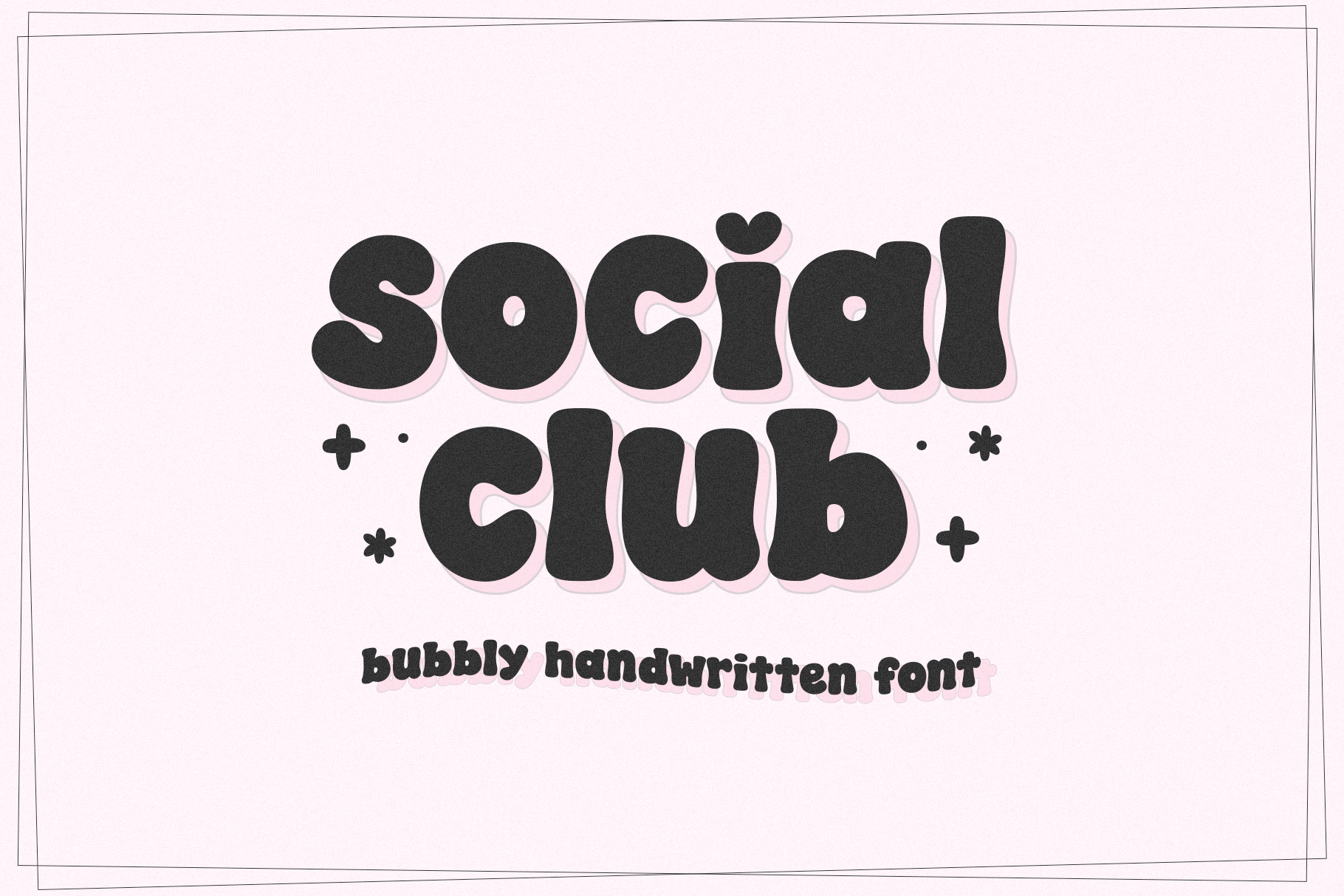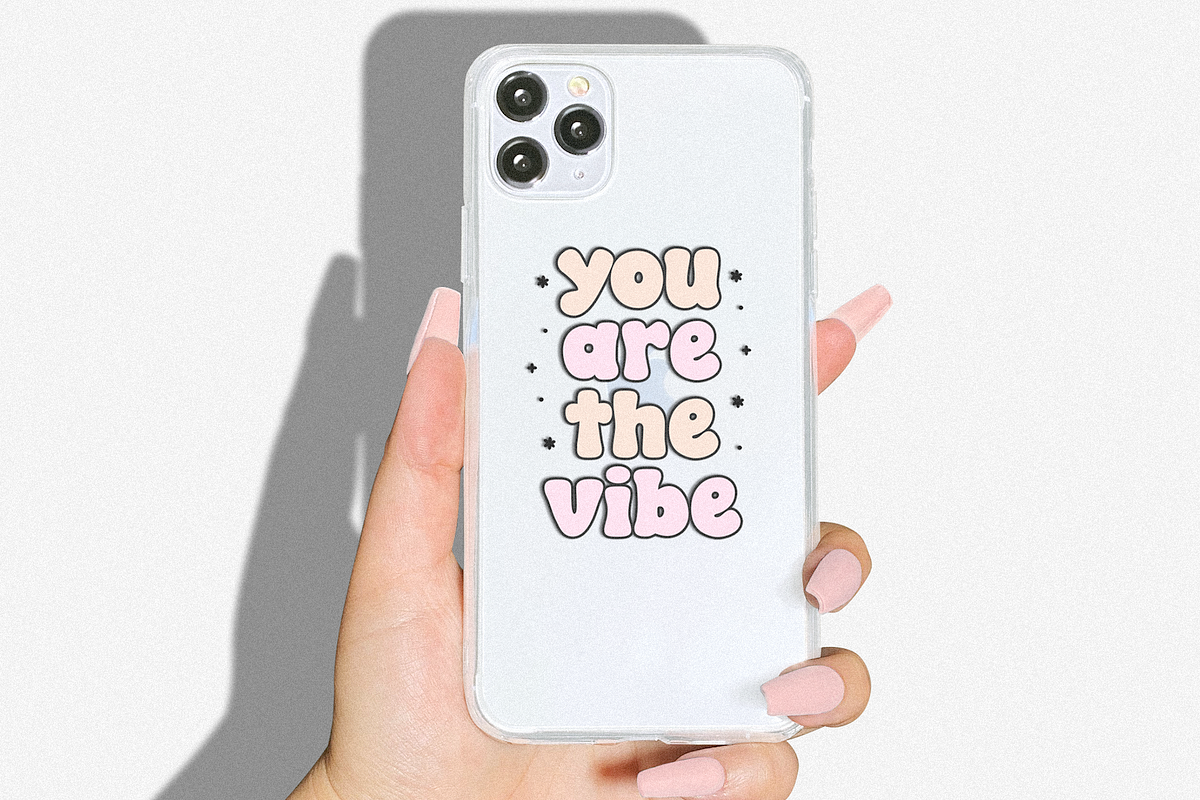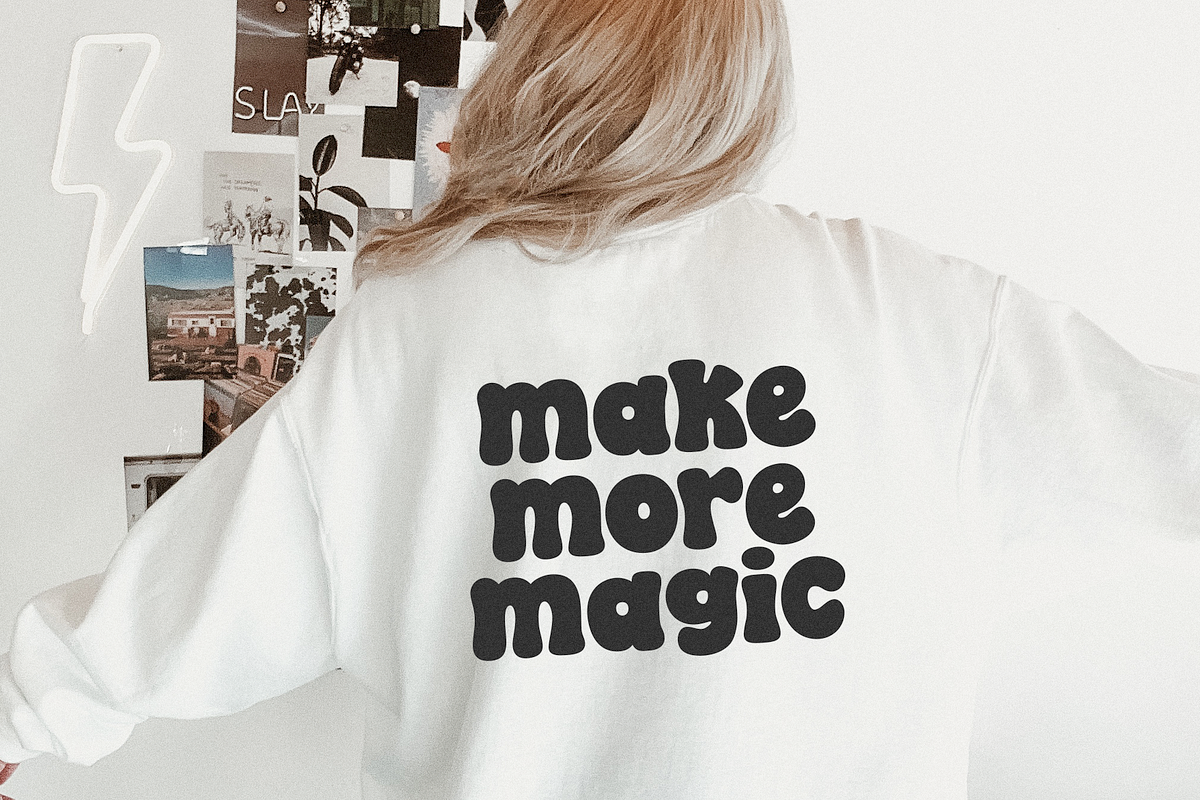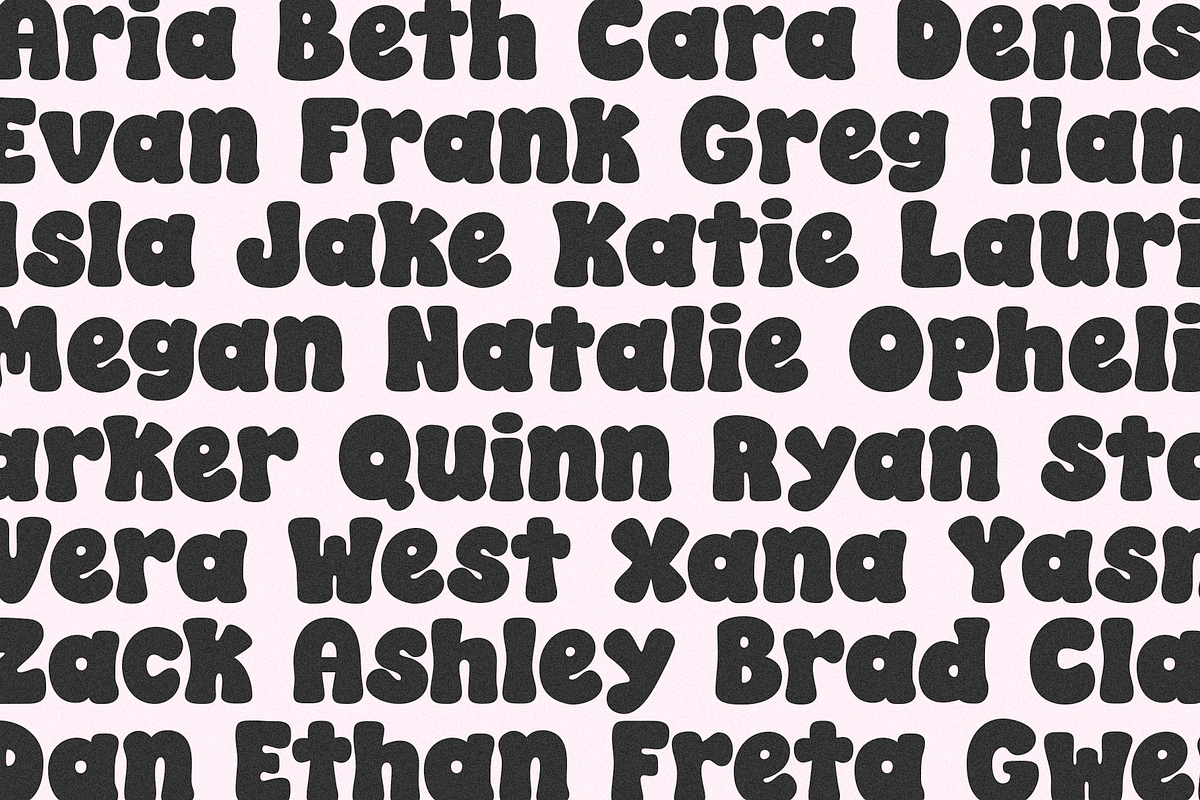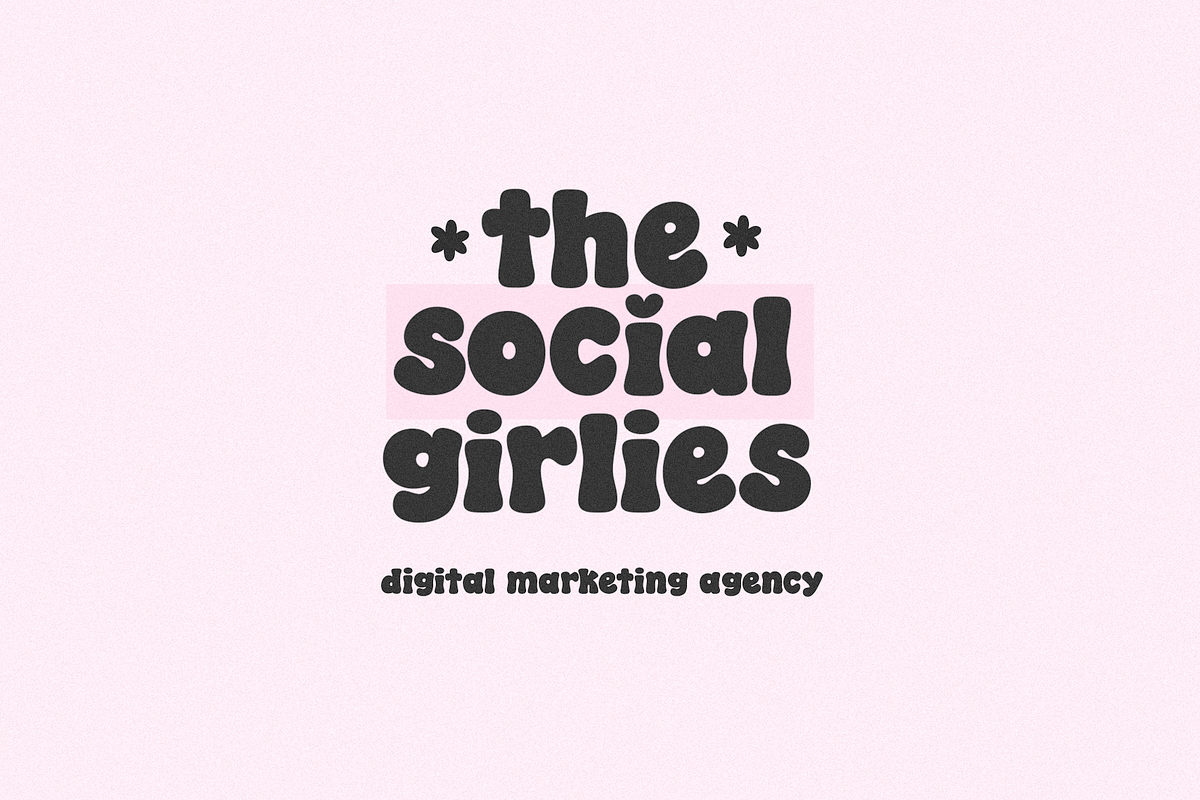
Social Club | Cute Bubbly Font
Social Club is a cute bubbly font!
use the backslash key to access i with heart
This font is perfect for logos, shirts, stickers, mugs, social media quotes, branding, svg files and more!